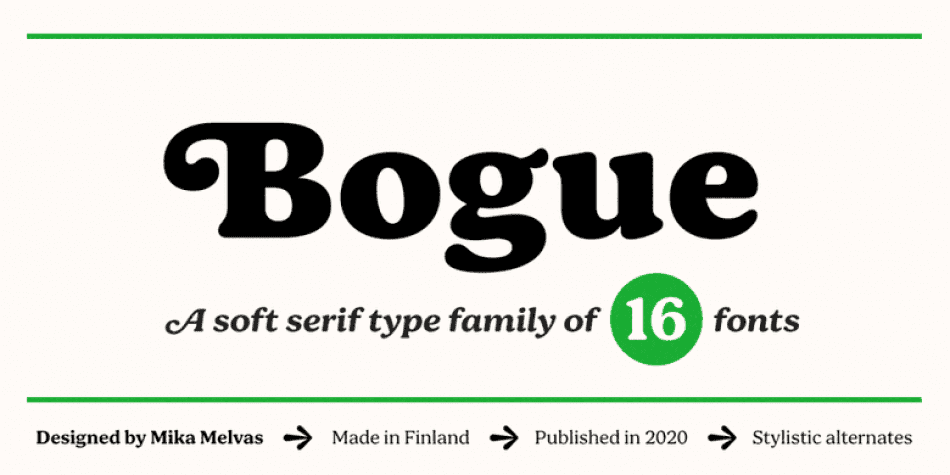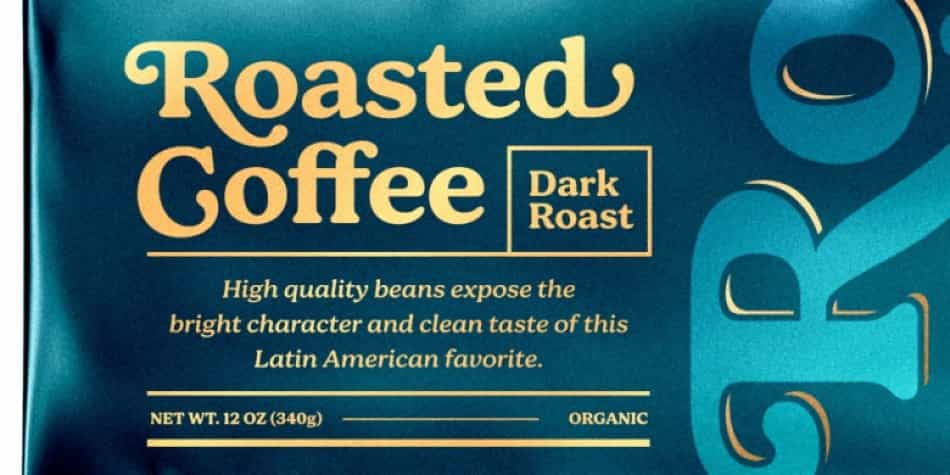
Bogue Font is a soft serif font family with eight weights and its associated italics that is designed for easy reading with a hint of retro charm. Bogue features various stylistic variations making it extremely flexible for uses in logo design, editorial design, branding packaging design web design or any other project that demands serif fonts.